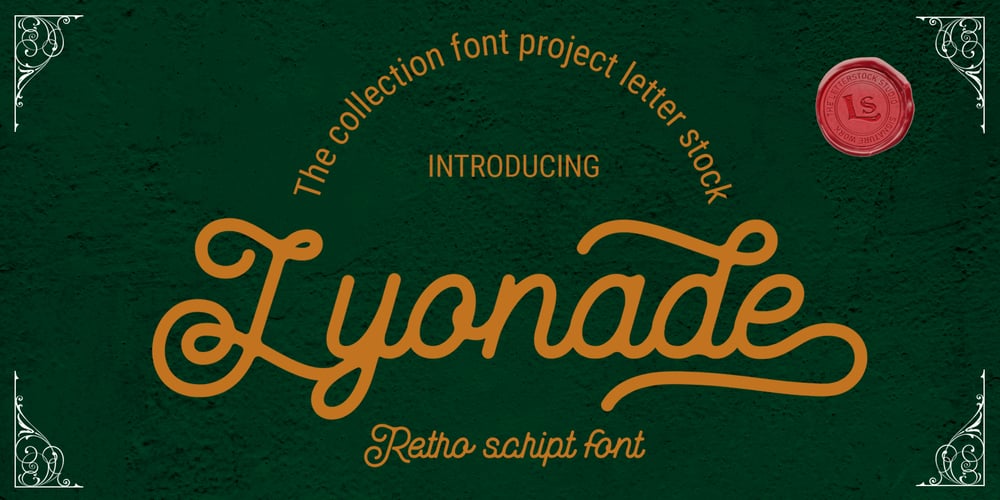
Lyonade Font Family was designed by Studio LetterStock and published by LetterStock. Lyonade contains 1 styles and family package options. **Lyonade Font** This pair was inspired by Retro motorbike poster design that I saw on some coffee shop, It was crafted by hand specially to add natural handmade feeling in its brand identity than i make it clean with pentool. **Opentype features**Lyonade font has 226 character set included Allysondust Font is very good looking in logo, labels, product packaging, invitations, advertising and others.This fonts works with folowing languages: Afrikaans, Albanian, Asu, Basque, Bemba, Bena, Chiga, Cornish, Danish, English, Estonian, Filipino, Finnish, French, Friulian, Galician, German, Gusii, Indonesian, Irish, Italian, Kabuverdianu, Kalenjin, Kinyarwanda, Low German, Luo, Luxembourgish, Luyia, Machame, Makhuwa-Meetto, Makonde, Malagasy, Malay, Manx, Morisyen, North Ndebele, Norwegian Bokmål, Norwegian Nynorsk, Nyankole, Oromo, Portuguese, Romansh, Rombo, Rundi, Rwa, Samburu, Sango, Sangu, Scottish Gaelic, Sena, Shambala, Shona, Soga, Somali, Spanish, Swahili, Swedish, Swiss German, Taita, Teso, Vunjo, Zulu Thank you for using this font.LS